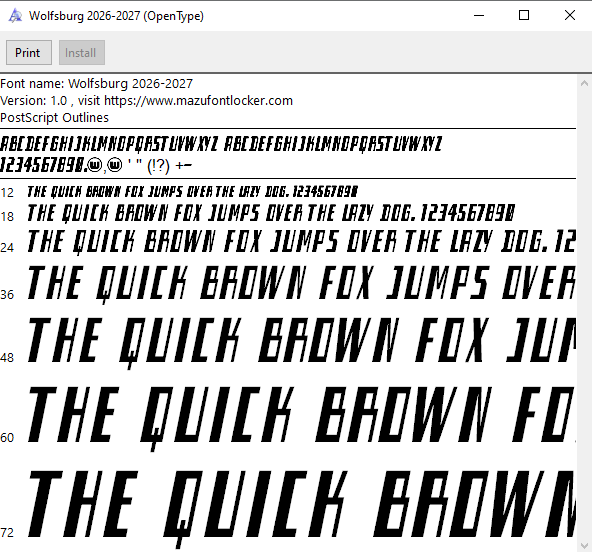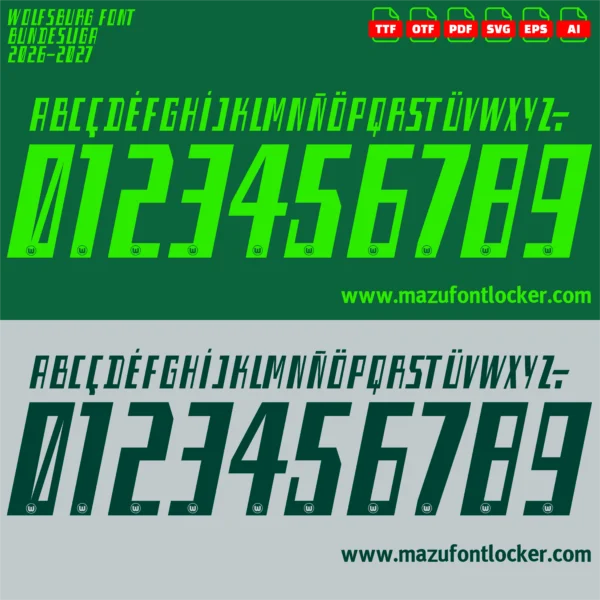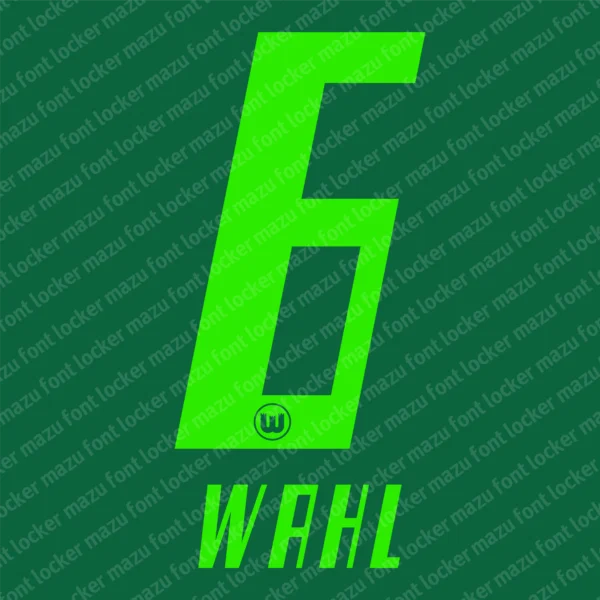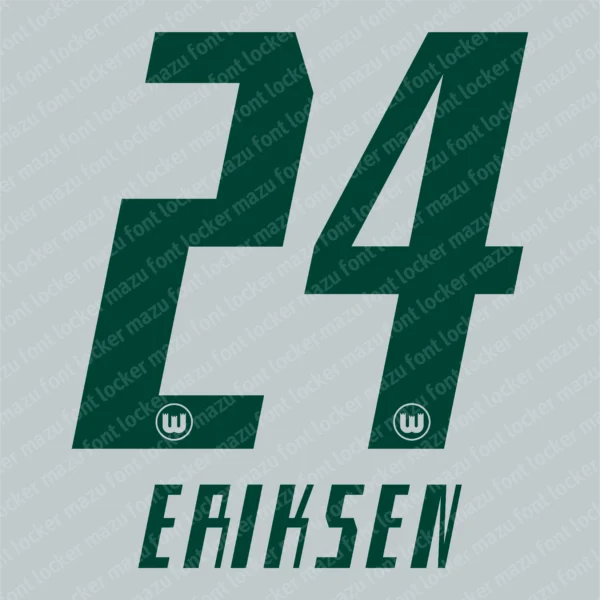
Wolfsburg 2026-2027 Font Vector – Stunning Green Wolves Icon
This font captures the commanding, emerald-edged, lightning-strike, and precision-engineered lettering that perfectly embodies Wolfsburg’s iconic club identity, proud Wolfsburg heritage, legendary green-and-white tradition, wolf-hearted spirit, and unstoppable German football power — delivering unmatched authenticity, premium quality, explosive energy, and elite Bundesliga & UEFA competition intensity for professional jersey mockups, dynamic football graphics, premium sports branding, passionate fan creations, and high-end design projects.
Wolfsburg 2026-2027 Font Vector – Stunning Wölfe Green & White Typeface
The Wolfsburg 2026-2027 Font Vector is a premium typeface that accurately recreates the distinctive match lettering associated with VfL Wolfsburg during the 2026-2027 football season. This high-quality vector font kit captures the bold, clean, and instantly recognizable typography that perfectly complements the club’s iconic green and white identity.
Designed for professional designers, football enthusiasts, jersey collectors, and passionate VfL Wolfsburg supporters, the Wolfsburg 2026-2027 Font Vector delivers exceptional authenticity for creating realistic jersey mockups, football merchandise, social media graphics, match posters, squad designs, and custom fan artwork. Every character has been carefully recreated to reflect the powerful and precise visual style of one of Germany’s most ambitious and successful football clubs.
Why Choose Wolfsburg 2026-2027 Font Vector
This font stands out thanks to its precise vector construction and authentic club-inspired styling. Every letter and numeral has been meticulously recreated to match the distinctive football lettering aesthetic associated with VfL Wolfsburg during the 2026-2027 season and its domestic and European campaigns.
Whether you’re producing professional football kit templates, custom jersey concepts, or eye-catching football content, the Wolfsburg 2026-2027 Font Vector delivers a genuine match-ready appearance inspired by the identity of the Wölfe.
The lettering featured in the Wolfsburg 2026-2027 Font Vector combines clean geometric lines with bold modern proportions. The result is a premium and highly readable typeface that reflects VfL Wolfsburg’s proud football heritage, iconic green and white colors, Lower Saxony identity, and passionate global fanbase.
• Complete uppercase A–Z alphabet and numbers 0–9 in authentic Wolfsburg 2026-2027 inspired style
• Special VfL Wolfsburg badge glyph – Press the “:” (Colon) key to insert the club badge
The Wolfsburg 2026-2027 Font Vector is an independently designed typeface package inspired by the official shirt lettering and visual identity associated with VfL Wolfsburg during the 2026-2027 football season. It has been carefully recreated for football enthusiasts, graphic designers, collectors, jersey creators, and fans producing custom football concepts, digital artwork, and fan-made projects.